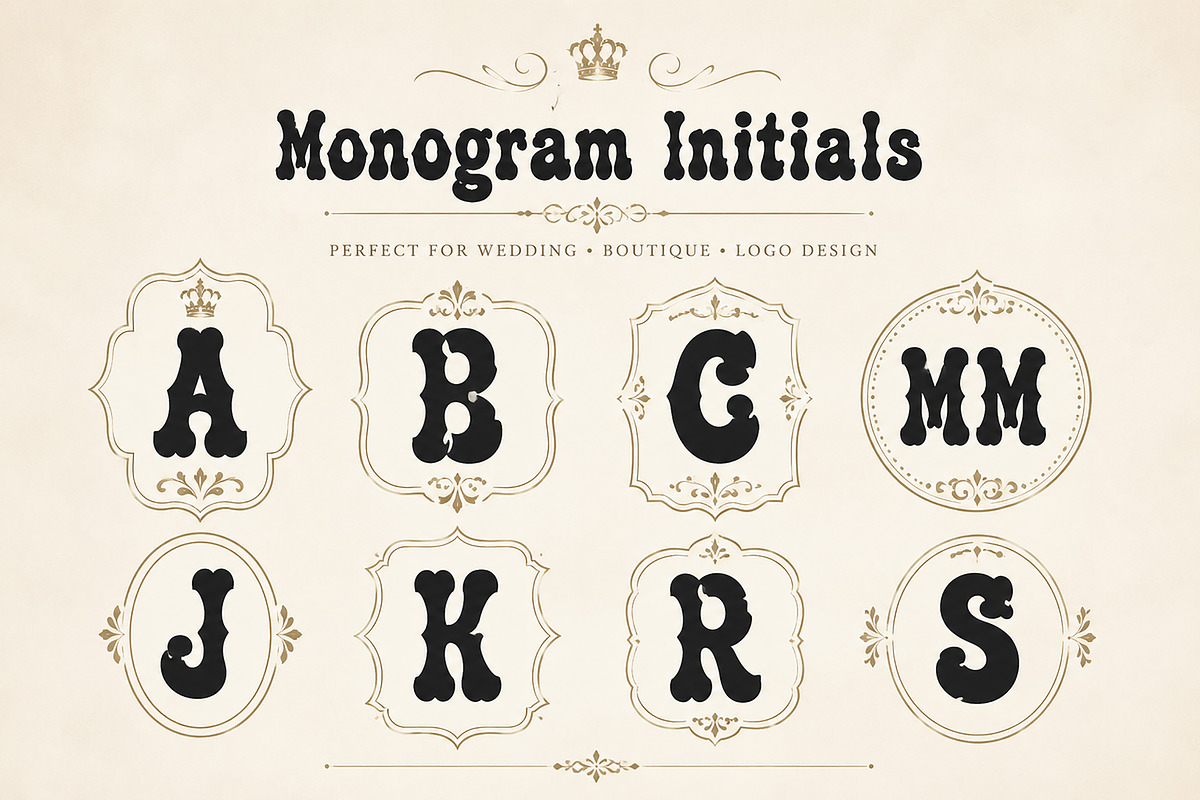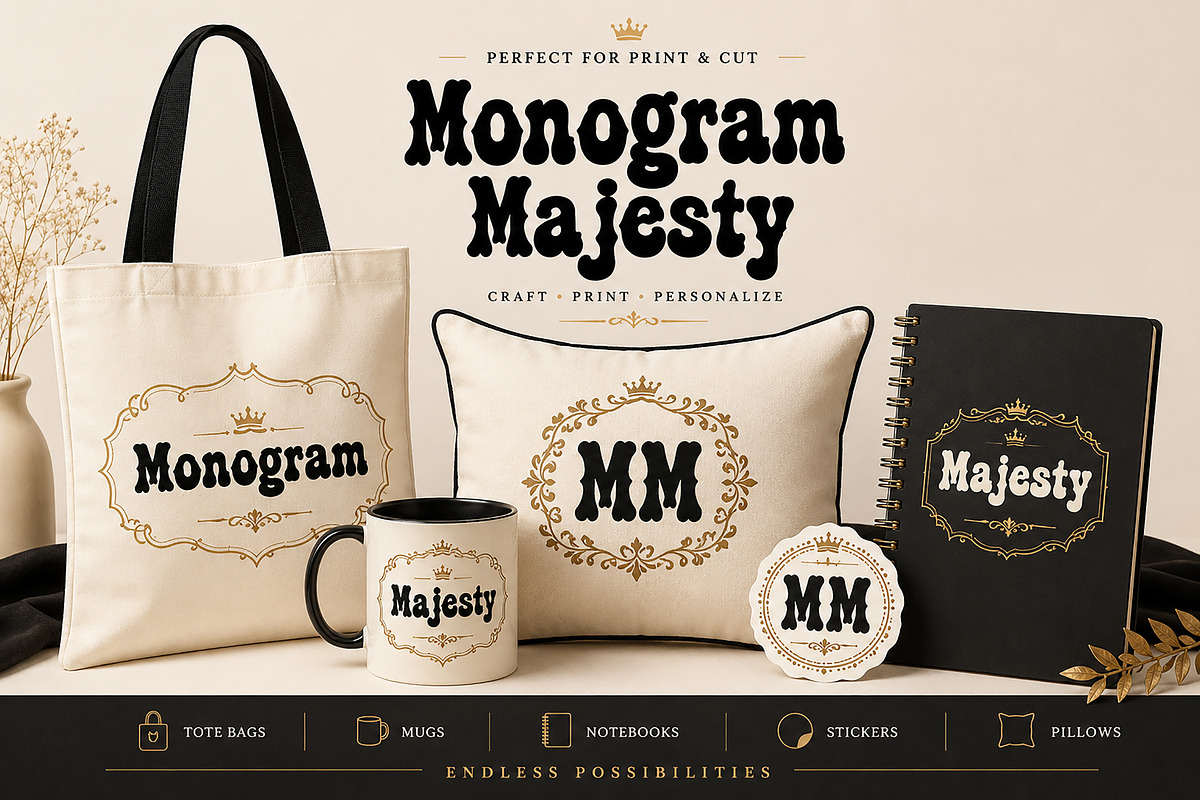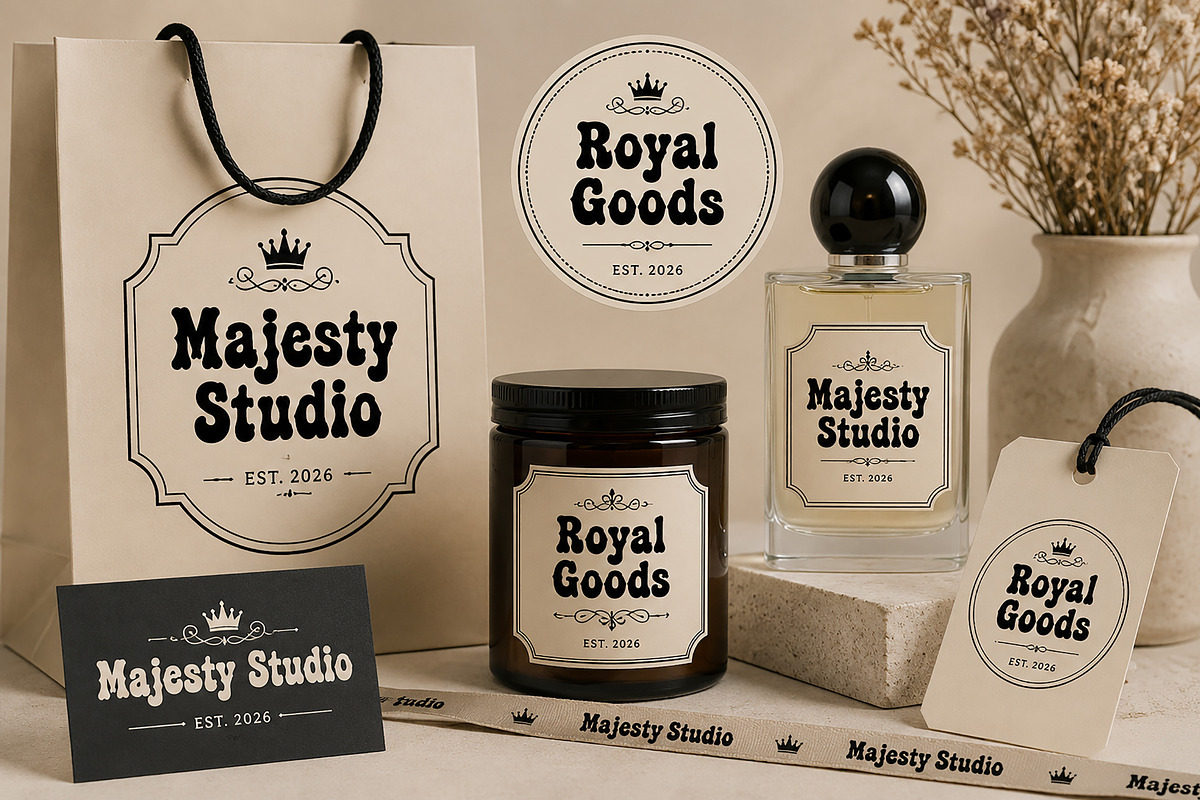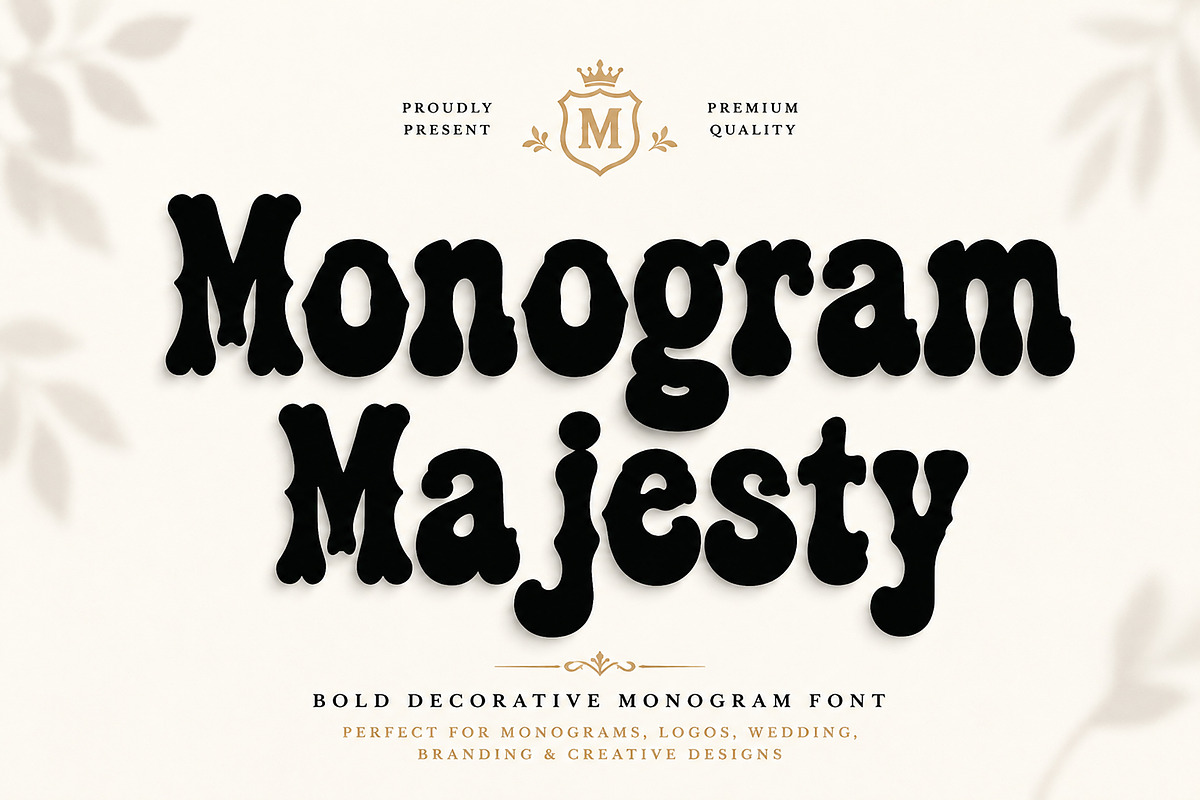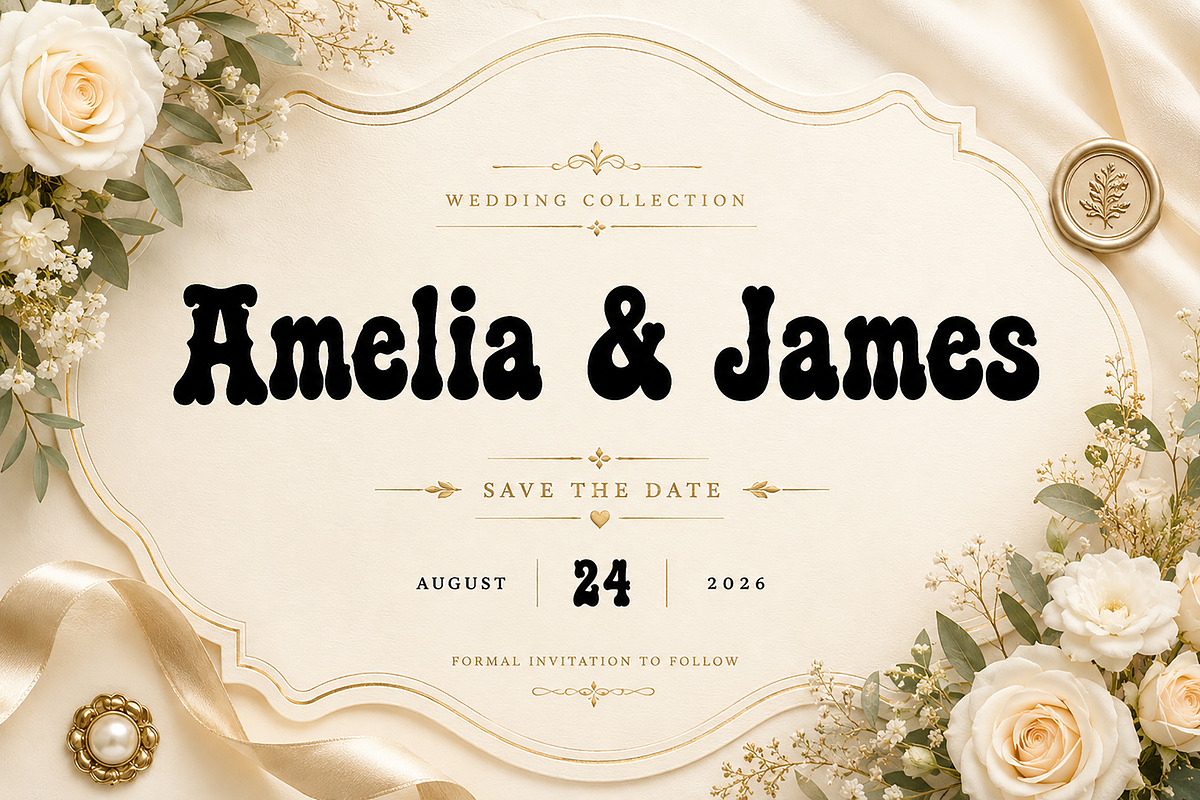
Monogram Majesty
Monogram Majesty – Decorative Monogram Font
Monogram Majesty is a bold decorative monogram font designed to bring elegance, personality, and charm to your creative projects. With its unique ornamental letterforms and vintage-inspired character shapes, this typeface is perfect for monograms, wedding designs, boutique branding, logos, packaging, invitations, Cricut projects, and personalized merchandise.
Whether you're creating luxury labels, custom initials, greeting cards, apparel designs, or social media graphics, Monogram Majesty adds a distinctive handcrafted look that instantly stands out. Its decorative style combines classic monogram aesthetics with a playful vintage touch, making it suitable for both modern and timeless designs.
Perfect for designers, crafters, small business owners, and creative entrepreneurs looking for a memorable display font with strong visual impact.
Monogram Designs
Wedding Invitations
Save The Date Cards
Boutique Branding
Logos & Badges
Cricut & Silhouette Projects
Personalized Gifts
T-Shirts & Merchandise
Stickers & Labels
Handmade Product Branding
Uppercase Letters
Lowercase Letters
Decorative Display Style
Monogram-Friendly Design